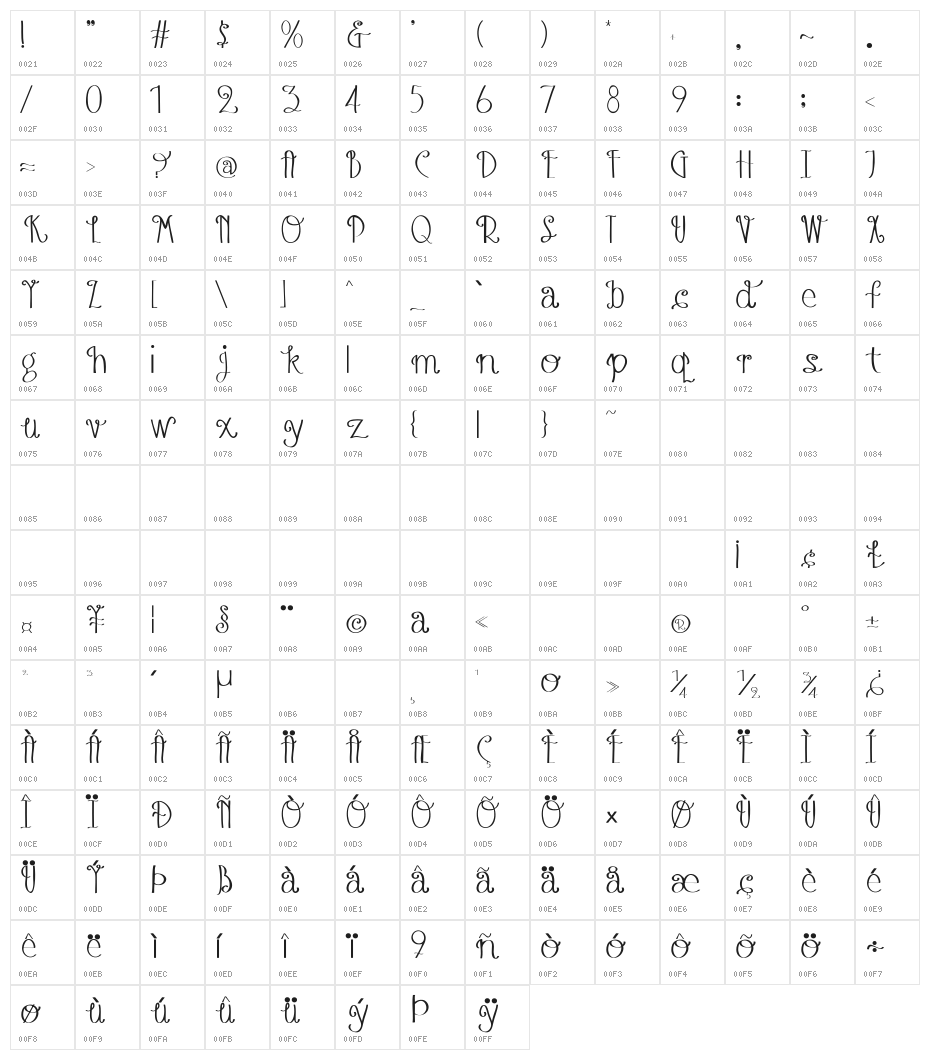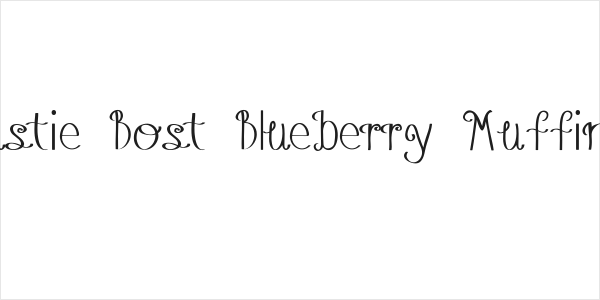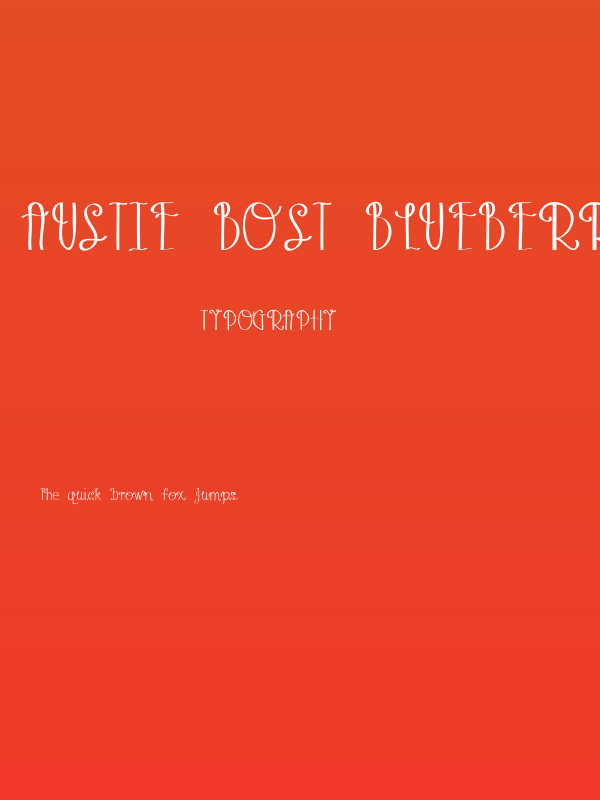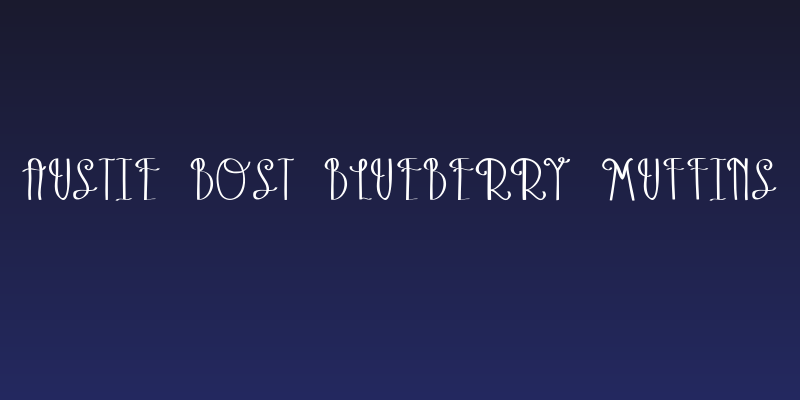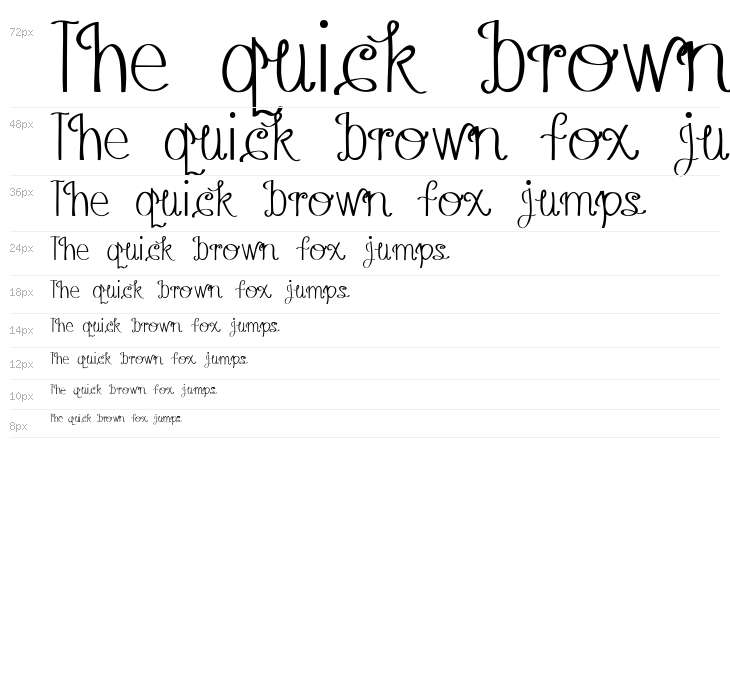
Austie Bost Blueberry Muffins Font
Austie Bost Blueberry Muffins Description
This font features a whimsical and playful style, characterized by its curly and looping letterforms. The uppercase letters have a distinct flair with elongated strokes and decorative elements, while the lowercase letters maintain a consistent, flowing appearance. The numbers and special characters are equally playful, with unique twists and turns that add to the font's charm. The overall design is reminiscent of a handwritten script, yet maintains a structured and legible form. This font is perfect for projects that require a touch of fun and creativity, such as children's books, invitations, or playful branding.
| Proposed Projects | Ideal for children's books, playful invitations, and creative branding projects. |